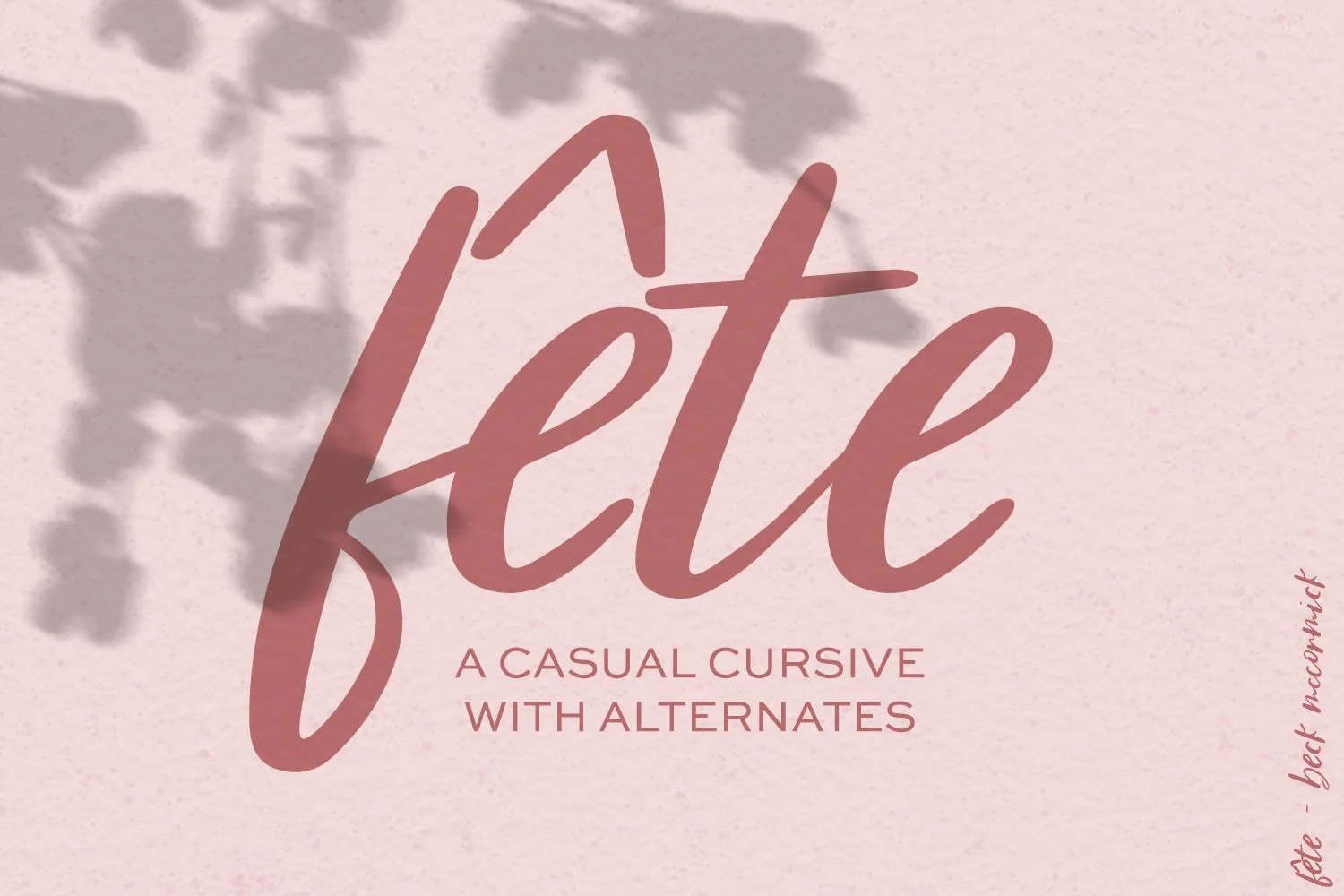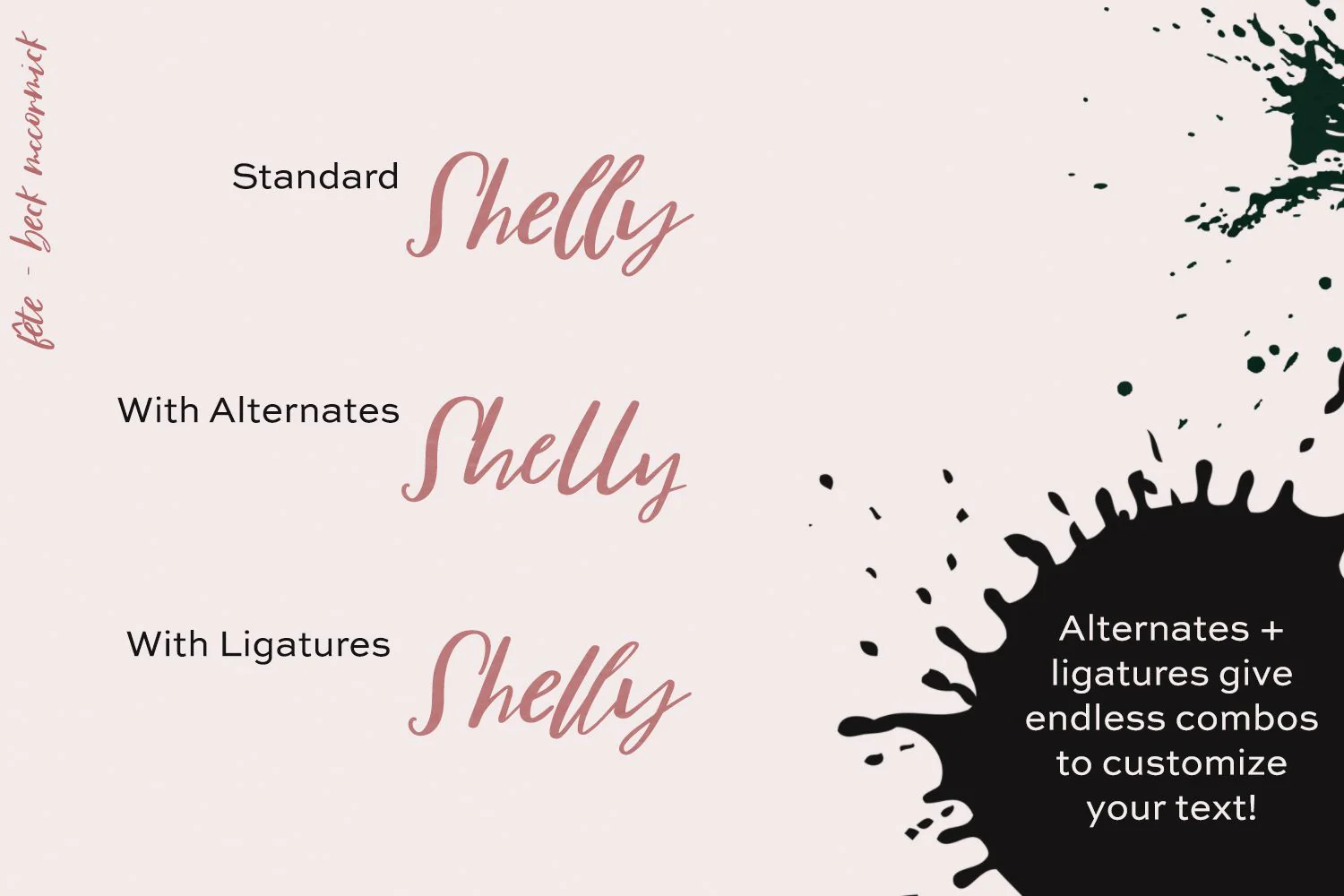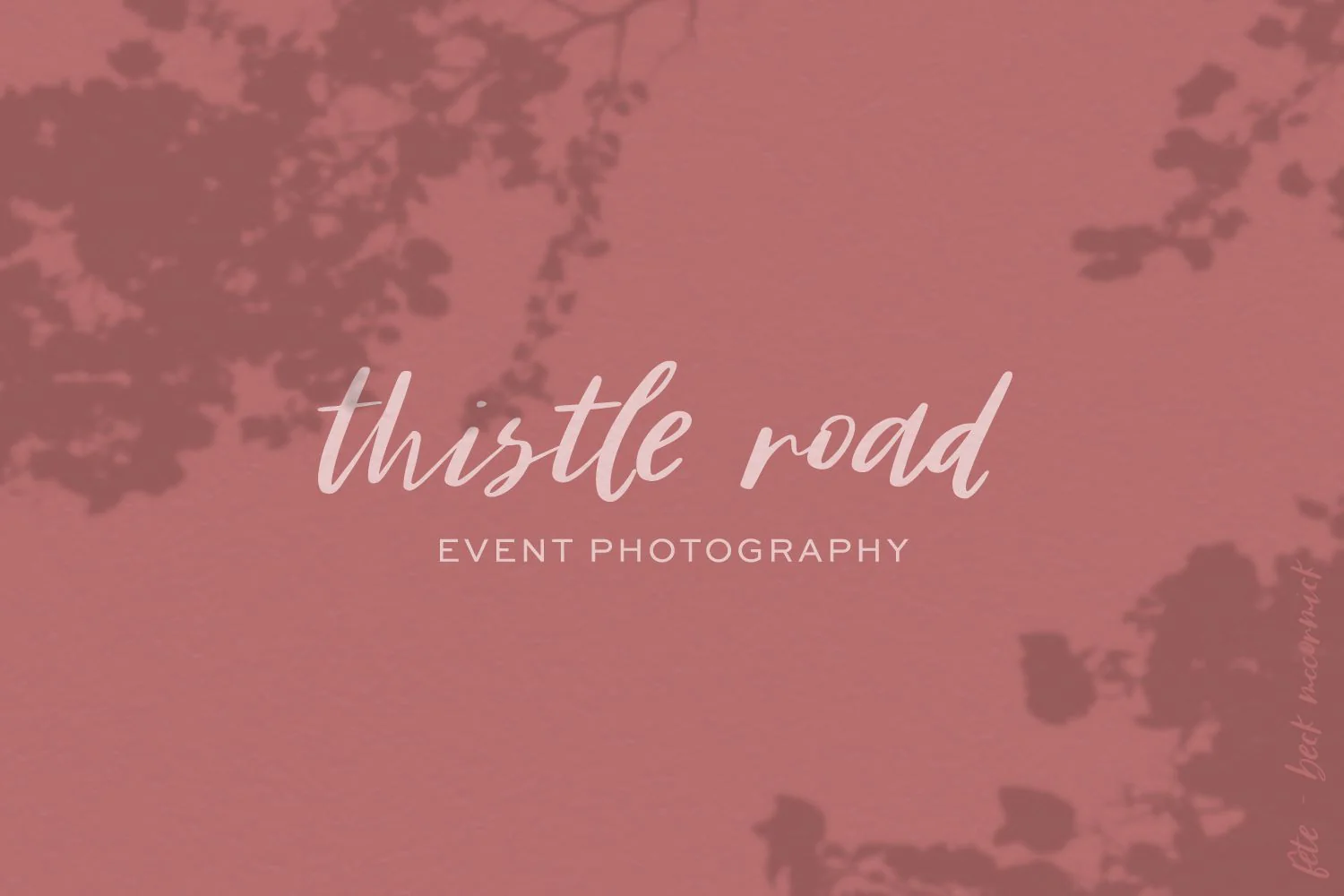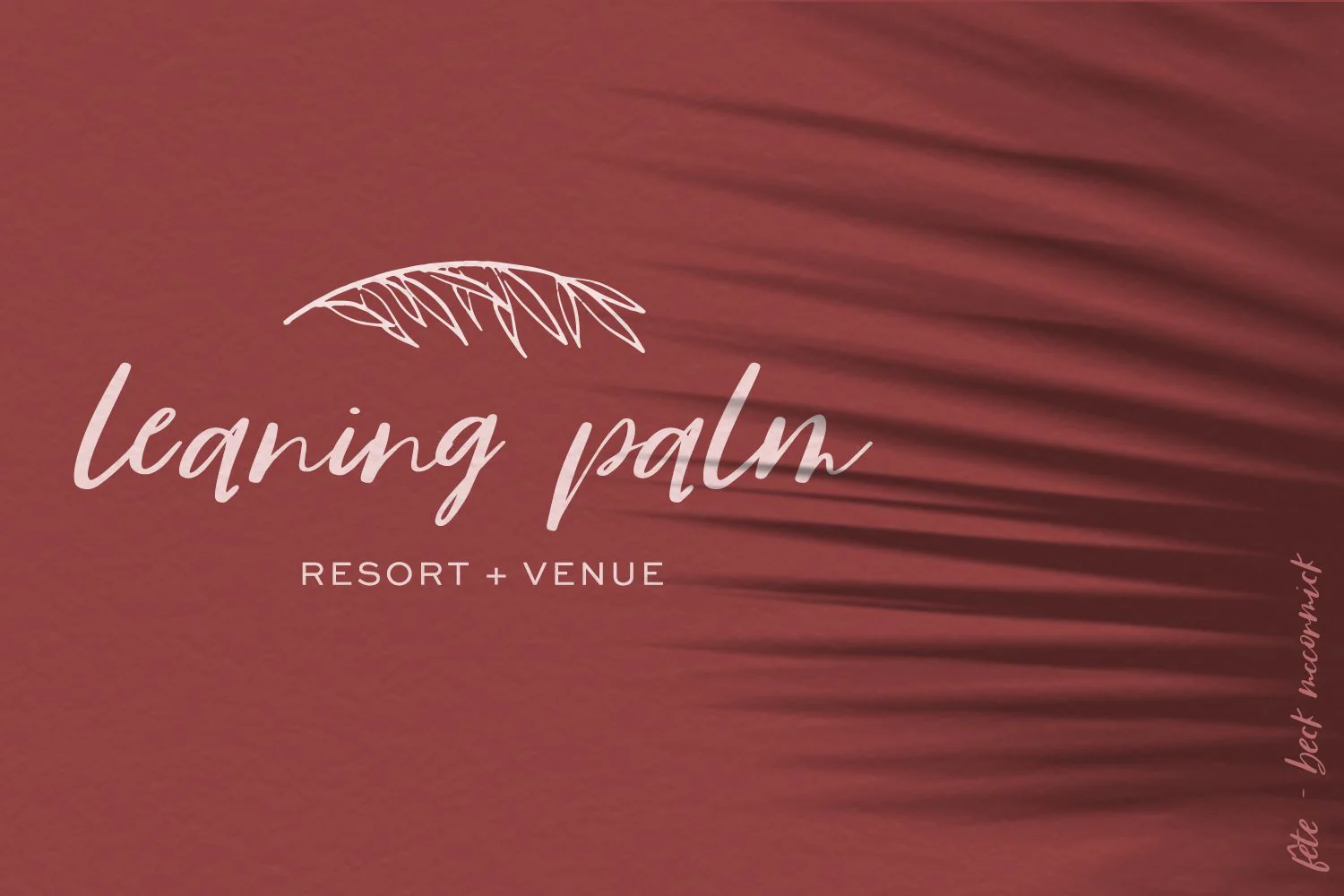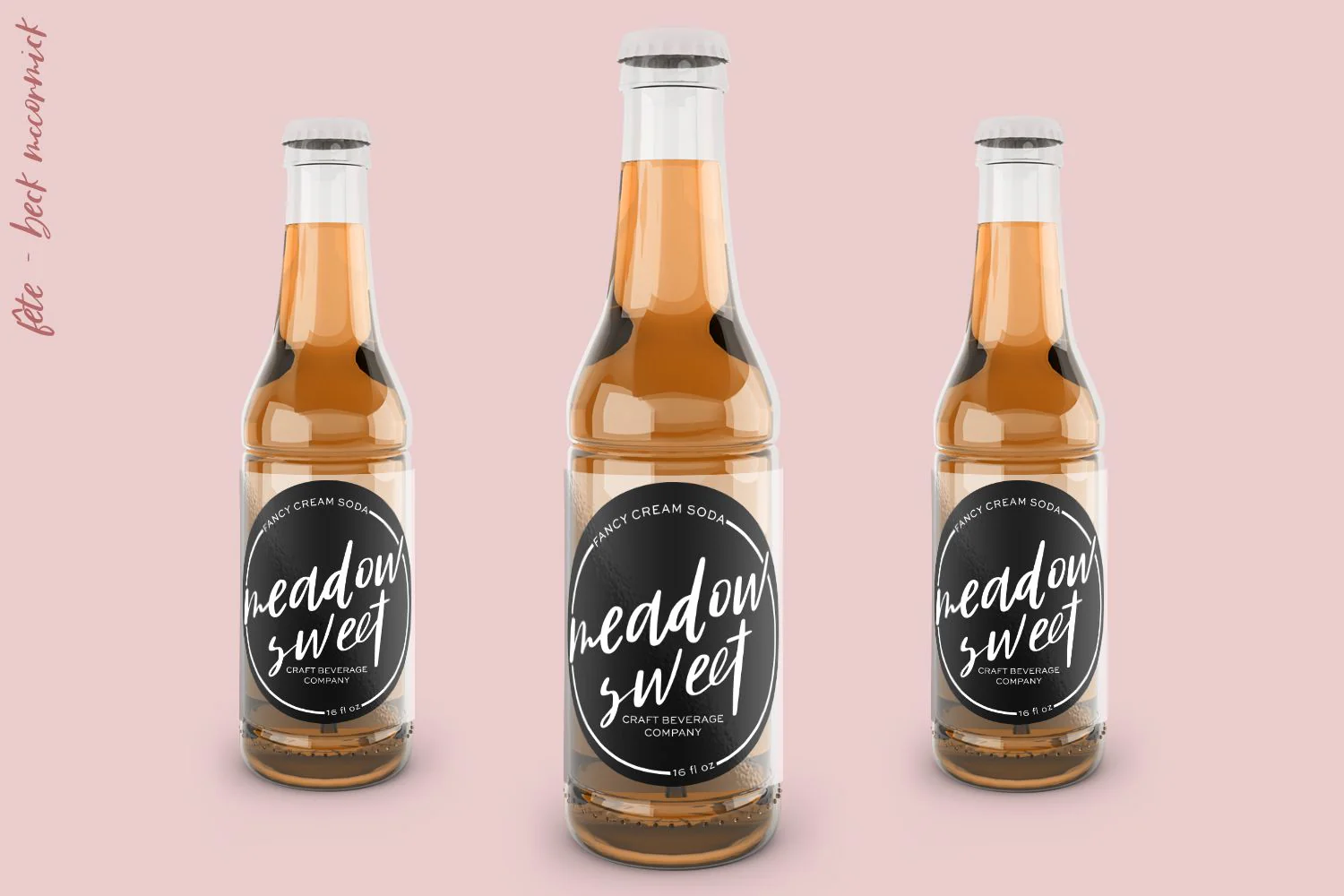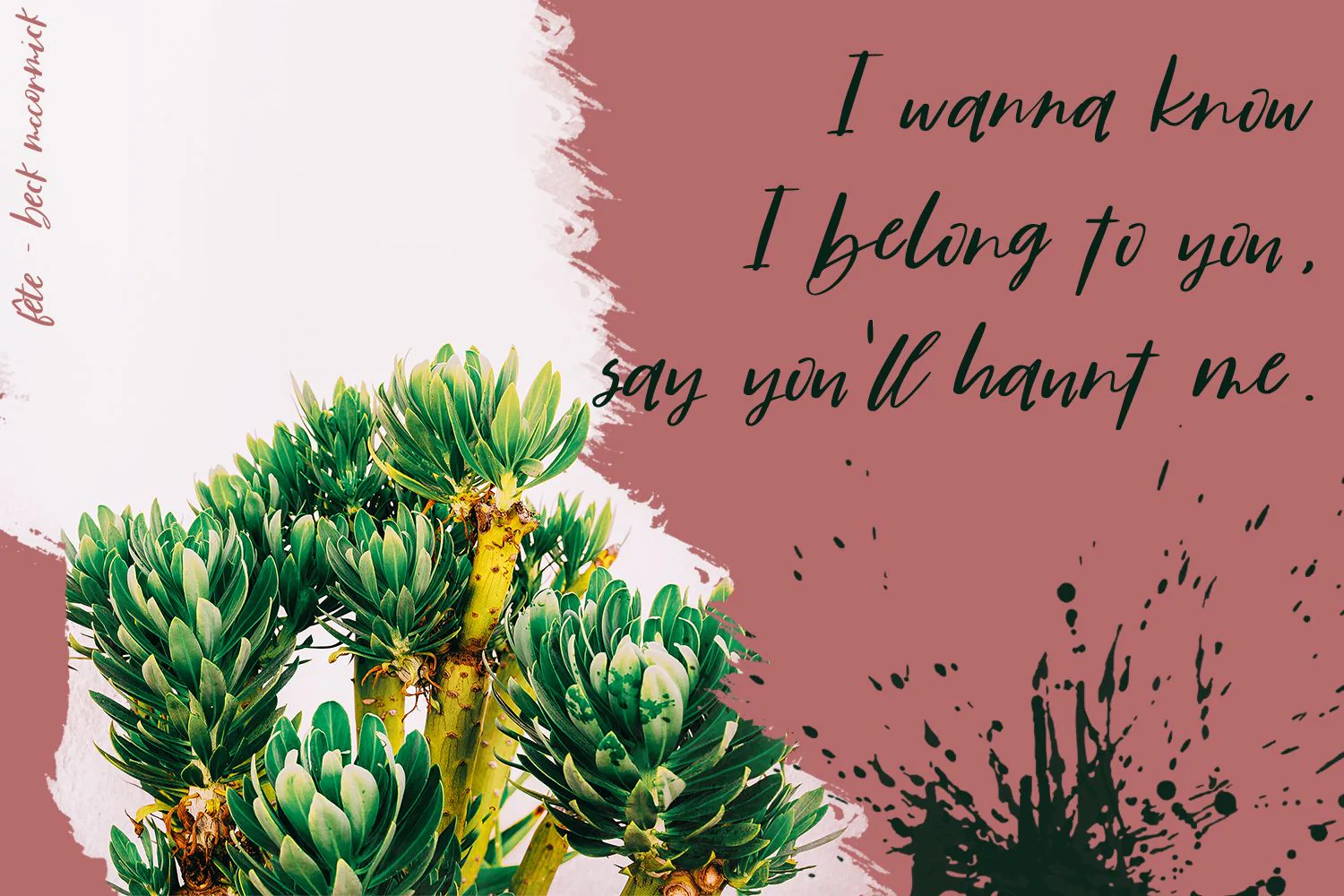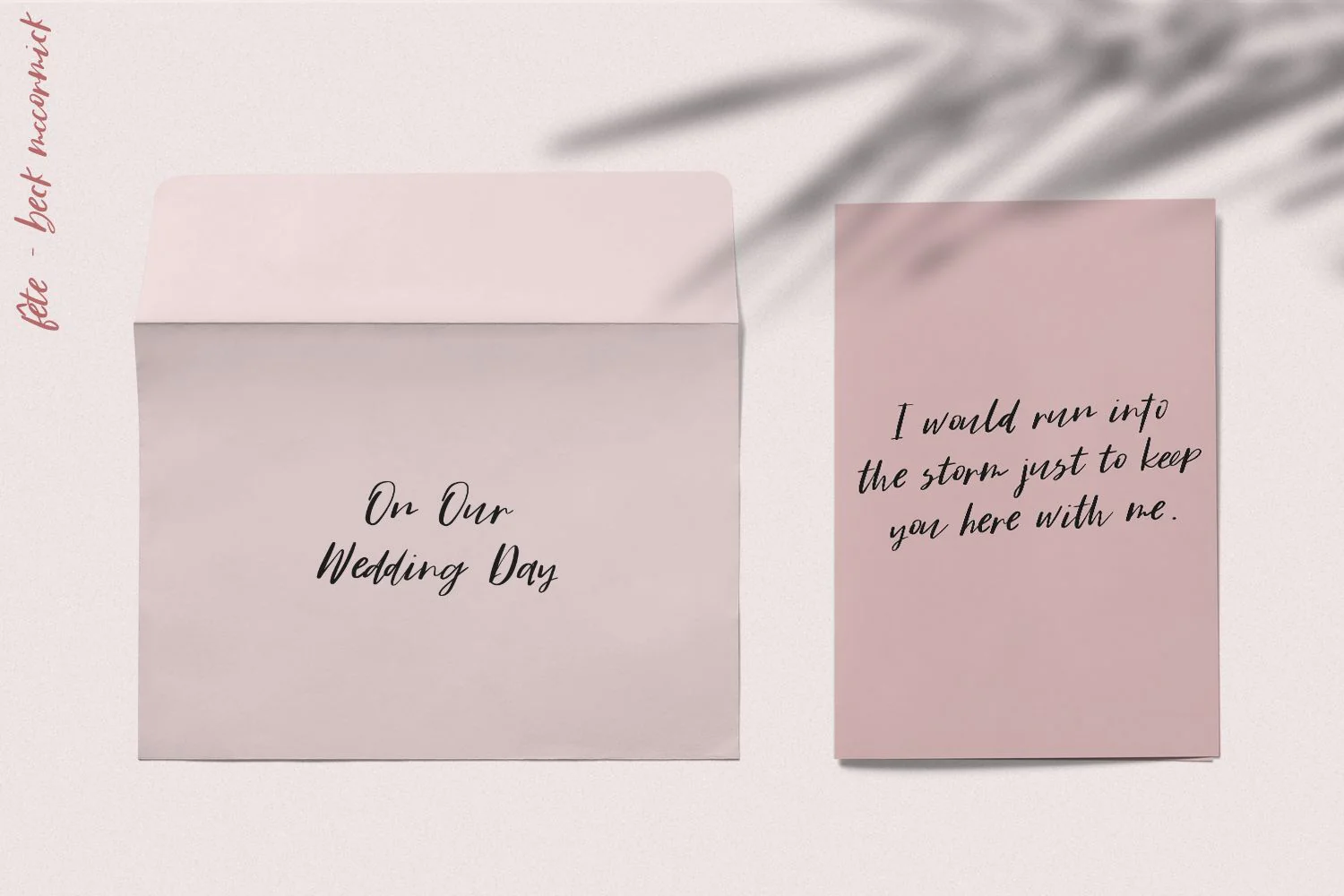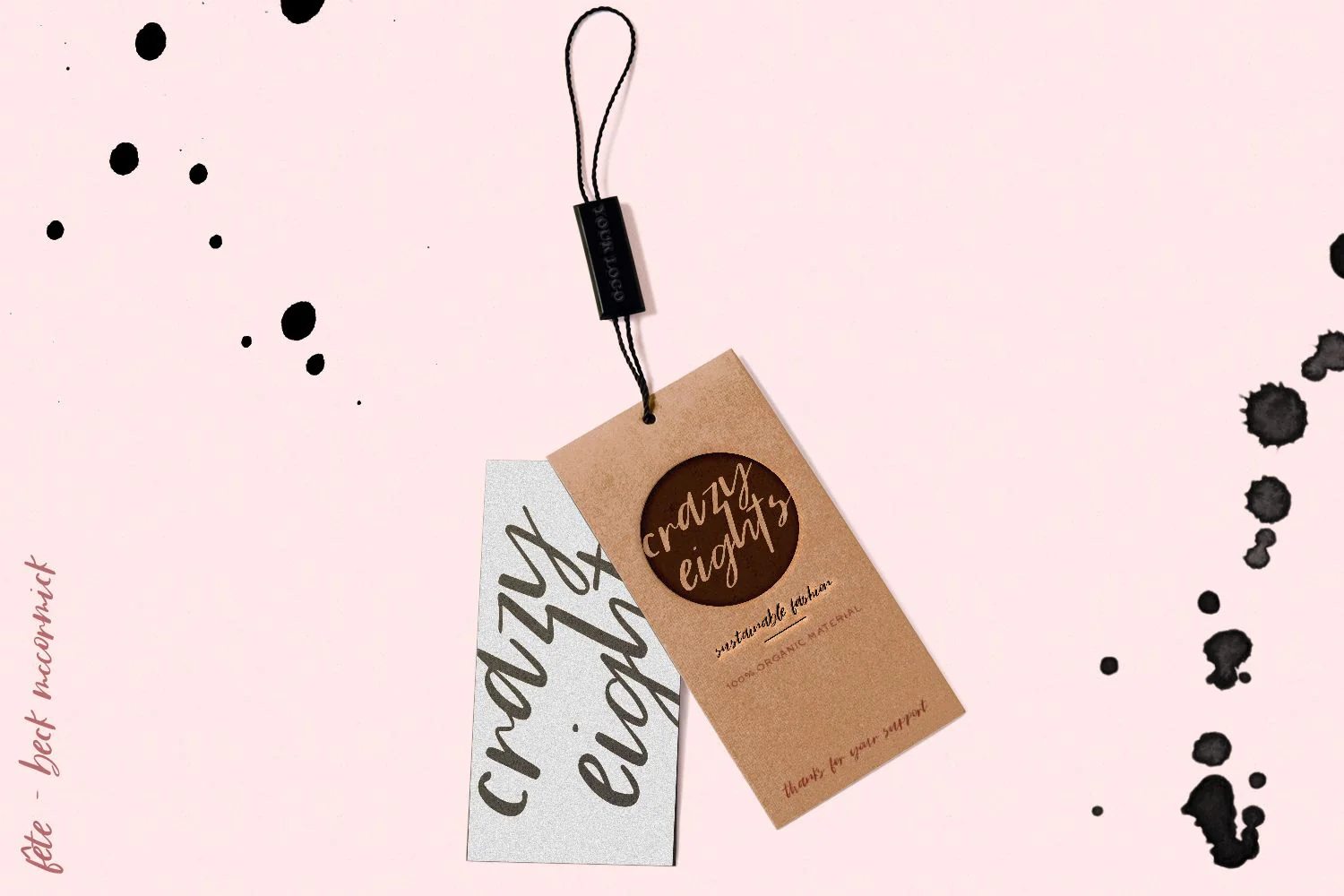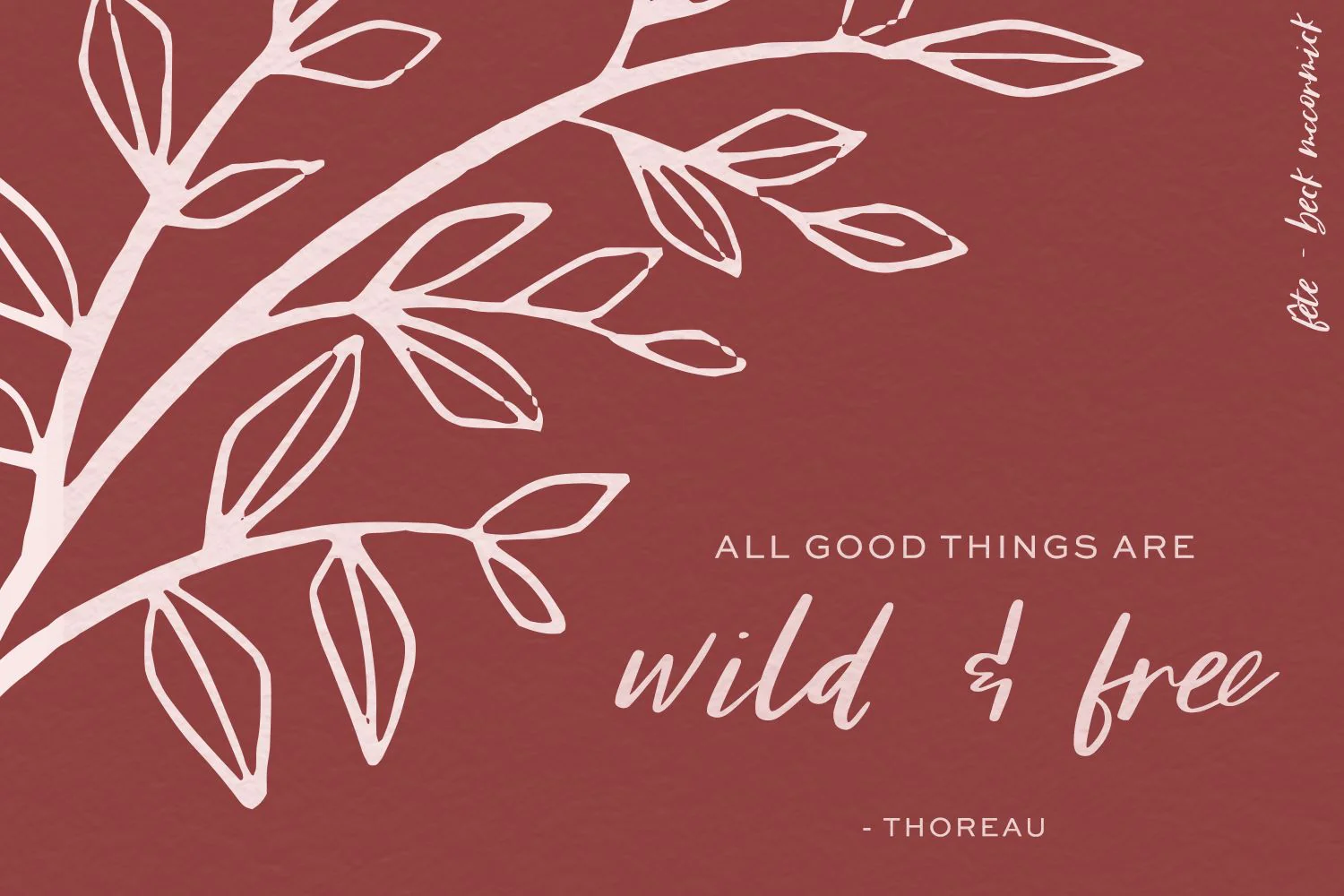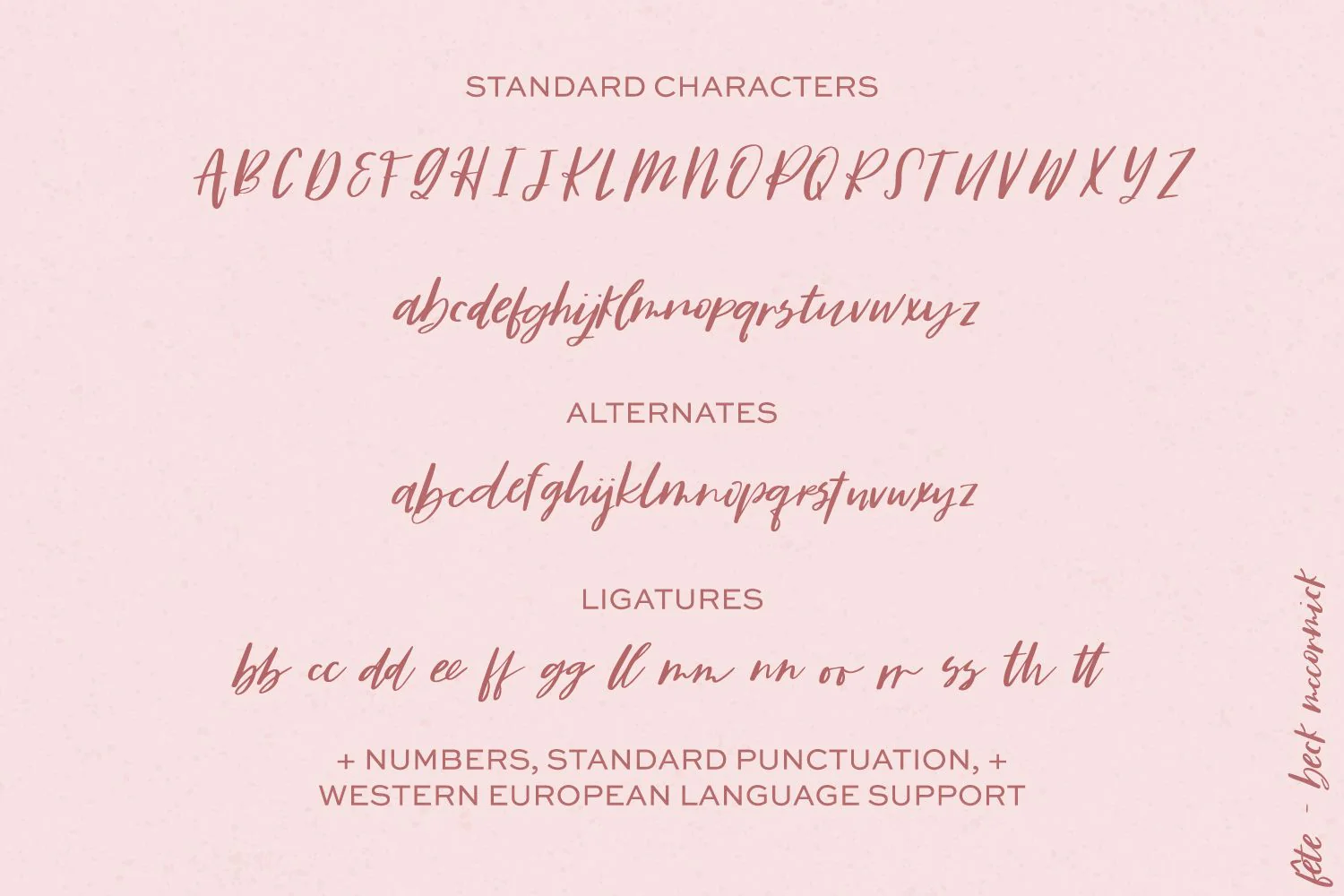
FĂȘte Casual Script Font
FĂȘte Casual Script is my first release of 2019.
**FĂȘte** will be a perfect fit for:
- logo designs or branding
- wedding invitations
- design projects like greeting cards, typography creations, posters
- websites
- social media graphics
**FĂȘte** includes diverse features like:
- full upper + lowercase letters, numbers, basic punctuation, and Western European language support
- a full set of stylistic alternates
- 14 double letter ligatures and common letter combinations